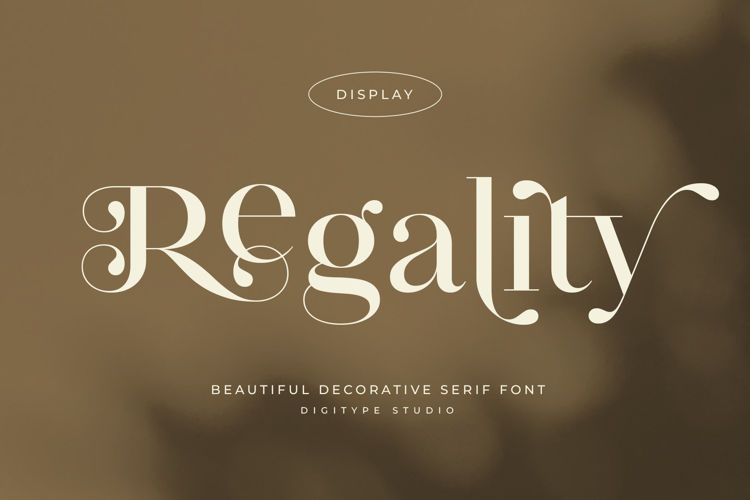
Regality Font
Semi Bold Style
Regality Display is a decorative serif font with beautiful curves. Combining smooth, circular strokes and teardrop terminals makes this font unique and attractive.